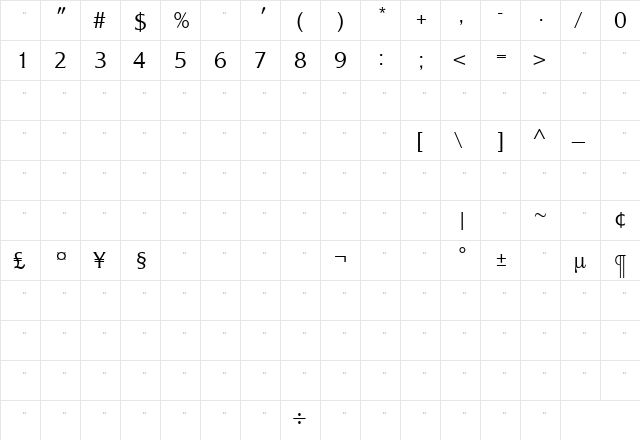
AlexonLightTab Regular
| Foundry | Copr. Red Rooster Typefounders |
Design Context for AlexonLightTab Typeface
AlexonLightTab offers clean, dependable letterforms without strong stylistic allegiance, making it a practical choice for designers who need flexibility. Its slender proportions lend an understated elegance to any composition.